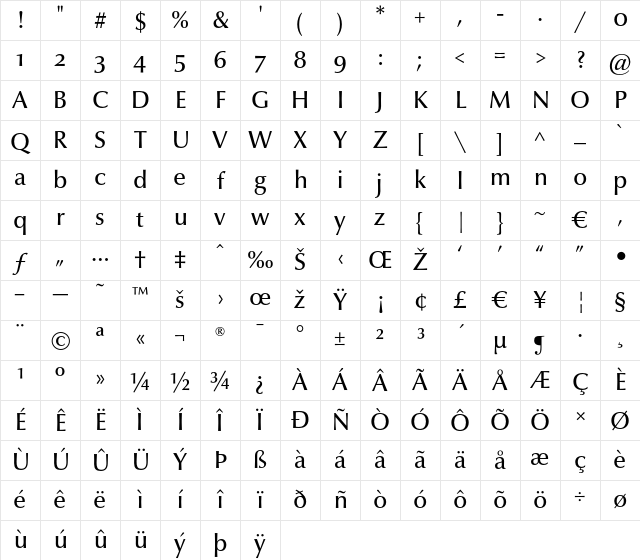
Optima nova LT is a composed and adaptable typeface that performs quietly and consistently across a wide range of design contexts. Its slender proportions lend an understated elegance to any composition.